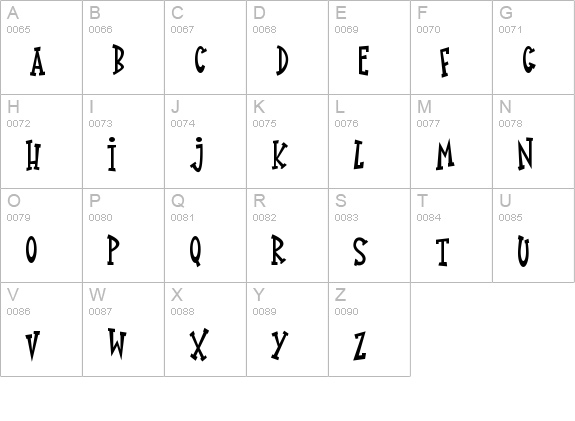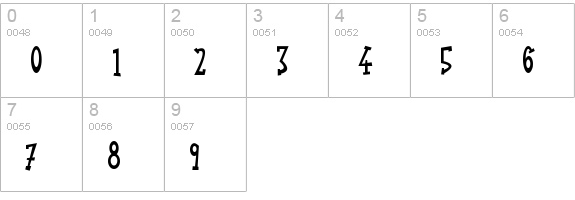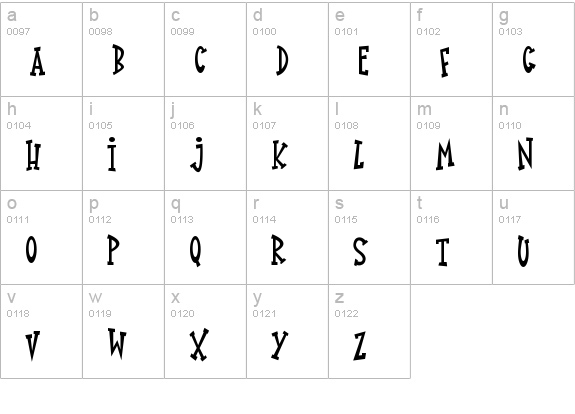
Knick Knack is a free for personal use font in the Fancy > Comic category, designed by Darrell Flood. It has been downloaded 84 times and is available for Windows, Mac and Linux.
Introducing Knick Knack font, a whimsical and playful typeface that is perfect for adding a touch of fun to your designs. This charming font features quirky and unique letterforms that will make your projects stand out. With its hand-drawn look and cheerful vibe, Knick Knack font is sure to bring a smile to anyone who sees it.